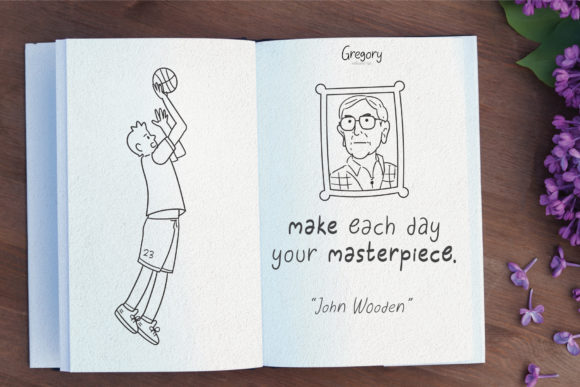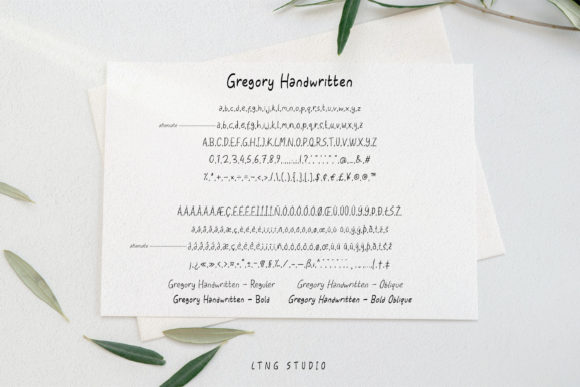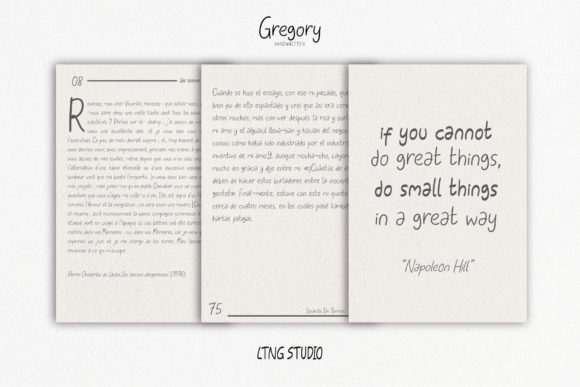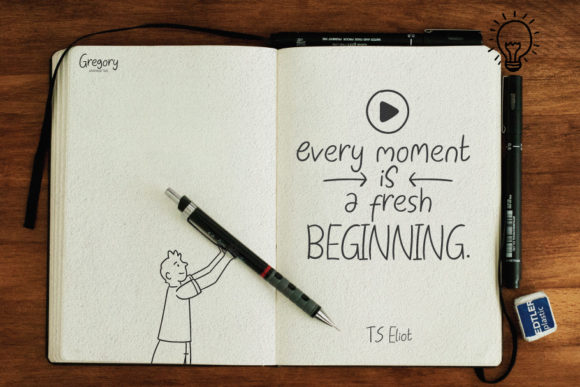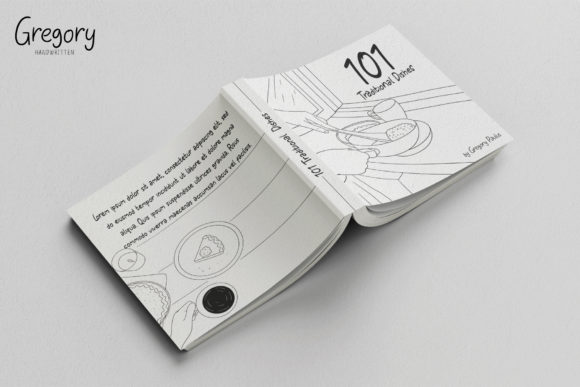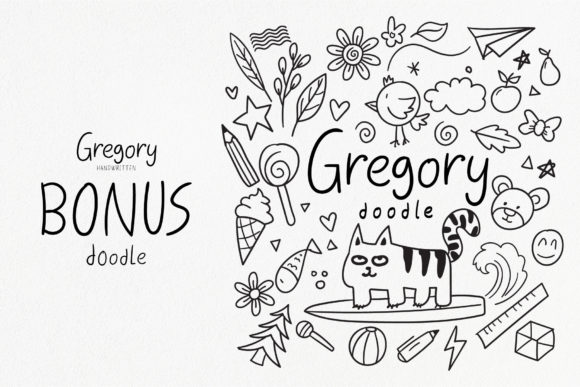
Introducing Gregory Handwritten Font: The Perfect Addition to Your Creative Projects
Are you a designer, crafter, or DIY enthusiast looking for a unique and versatile font to elevate your creative projects? Look no further than the Gregory Handwritten Font, a one-of-a-kind handwritten font family that’s perfect for a wide range of applications. From handwritten notes and children’s books to sweet greeting cards, DIY projects, branding, and wedding invitations, this font is sure to add a personal touch to your work.
What Makes Gregory Handwritten Font So Special?
Gregory Handwritten Font is a standout font that offers a range of features that make it perfect for creative projects. Here are just a few reasons why you’ll love working with this font:
- Unique Handwritten Style: Gregory Handwritten Font boasts a distinctive handwritten style that’s both elegant and playful. Its unique character will add a personal touch to your projects and set them apart from the rest.
- PUA Encoded: This font is PUA (Private Use Area) encoded, which means you can access all of the glyphs and swashes with ease. This makes it simple to customize your text and add special touches to your projects.
- Alternate Glyphs: With Gregory Handwritten Font, you can play with letter spacing and alternate glyphs to get different looks. This feature allows you to experiment with various styles and find the perfect fit for your project.
- Highly Versatile: Whether you’re working on a children’s book, a wedding invitation, or a DIY project, Gregory Handwritten Font is the perfect choice. Its versatility makes it suitable for a wide range of applications.
Gregory Handwritten Font is a dream come true for designers and crafters who want to add a personal touch to their work. Here are just a few ways you can use this font to elevate your projects:
- Handwritten Notes: Add a personal touch to your handwritten notes with Gregory Handwritten Font. Its elegant and playful style makes it perfect for letters, cards, and other written communication.
- Children’s Books: Create engaging and interactive children’s books with Gregory Handwritten Font. Its unique style will bring your story to life and capture the imagination of young readers.
- Sweet Greeting Cards: Make your greeting cards stand out with Gregory Handwritten Font. Its playful and elegant style is perfect for birthdays, weddings, and other special occasions.
- DIY Projects: Add a personal touch to your DIY projects with Gregory Handwritten Font. Whether you’re working on a craft, a scrapbooking project, or a home decor item, this font is sure to add a unique and creative element.
- Branding & Wedding Invitations: Use Gregory Handwritten Font to create custom branding and wedding invitations that reflect your personal style. Its elegant and sophisticated style makes it perfect for special occasions.
Tips for Using Gregory Handwritten Font
To get the most out of Gregory Handwritten Font, here are a few tips to keep in mind:
- Experiment with Letter Spacing: Play with letter spacing to create different looks and add visual interest to your text.
- Use Alternate Glyphs: Take advantage of the font’s alternate glyphs to add special touches to your text and make it more engaging.
- Pair with Other Fonts: Experiment with pairing Gregory Handwritten Font with other fonts to create a unique and visually appealing combination.
| Font Name | Gregory Handwritten Font |
| Author | LTNG |
Gregory Handwritten Font is a unique and versatile font that’s perfect for designers, crafters, and DIY enthusiasts. Its elegant and playful style makes it suitable for a wide range of applications, from handwritten notes and children’s books to sweet greeting cards, DIY projects, branding, and wedding invitations. With its PUA encoding, alternate glyphs, and highly versatile design, this font is sure to become a staple in your creative toolkit. So why wait? Download Gregory Handwritten Font today and start adding a personal touch to your creative projects!